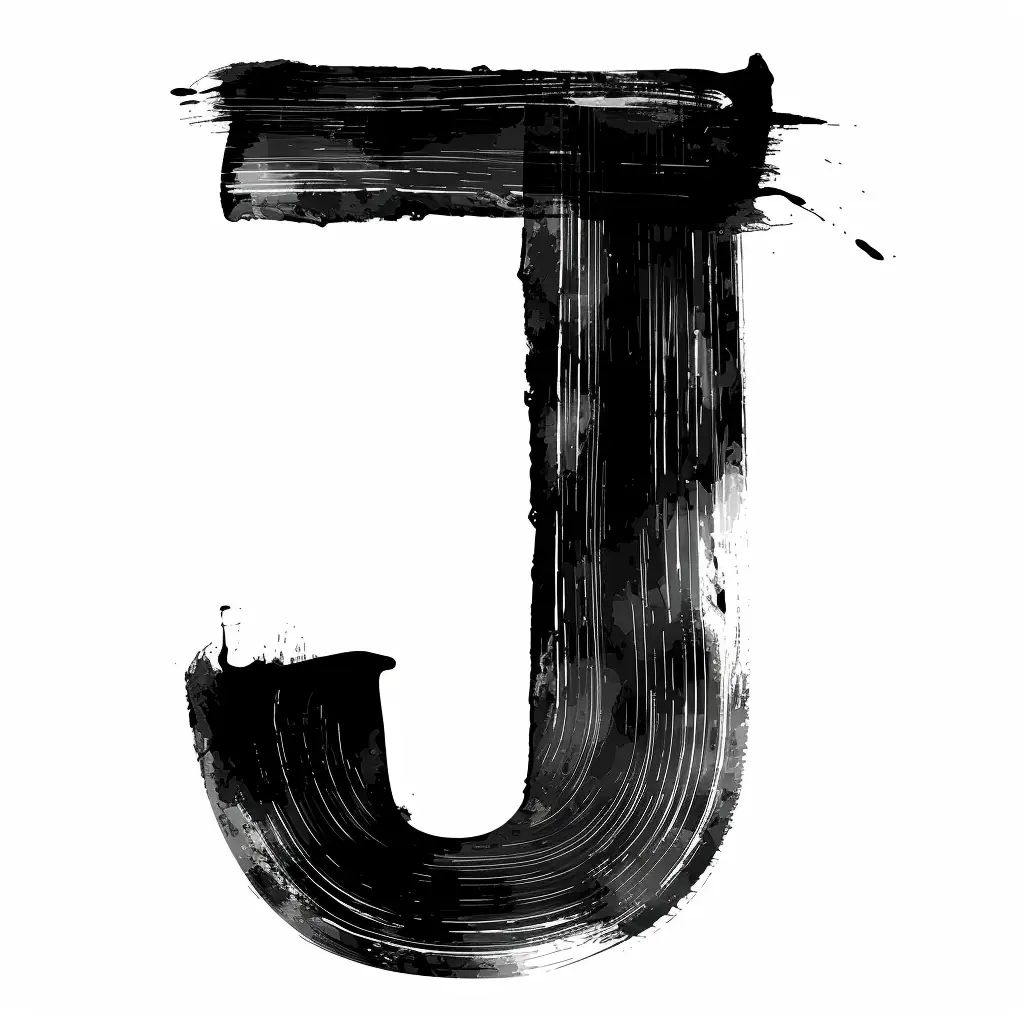
The image features a stylized letter "J" rendered in a bold, brushstroke-inspired design. The letter is predominantly black with textured, layered strokes and subtle gray gradients, set against a clean white background. Visual elements include rough edges, paint splatters, and curved, dynamic lines that emphasize a hand-painted, artistic aesthetic.